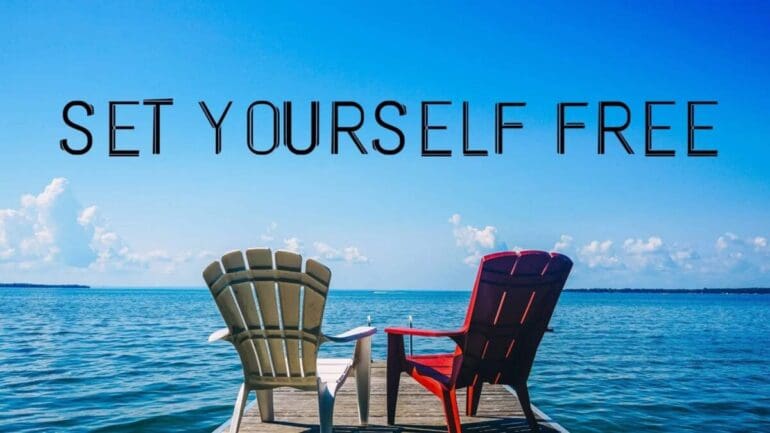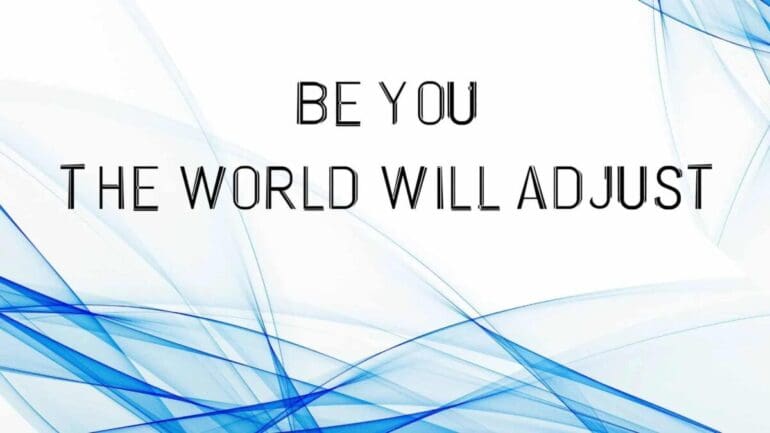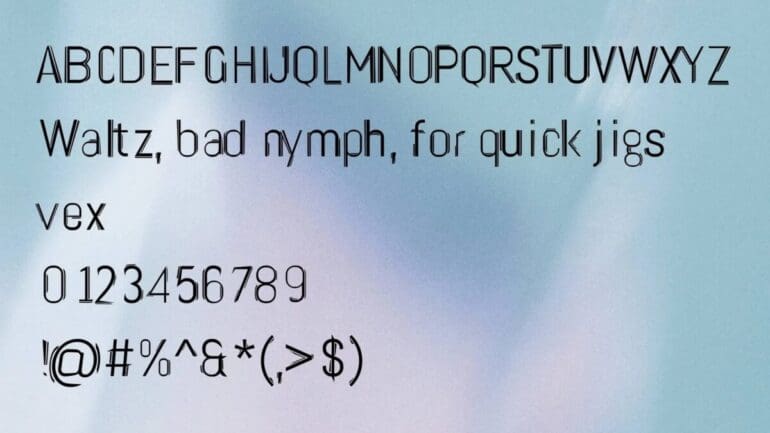
Twin Liner Font
Introducing you to a modern typeface that is contained of the double line and single line alphabets. This decorative typeface is named Twin Liner font that comes with excellent sliced double lines and it was created with the aid of Boldfonts that is famous for many other ornamental typefaces. Their typefaces got extremely popular among the designers which provide advanced designing techniques for their modern designs. Boldfonts wanted to create his own Art Deco style typeface that represented this era.
This typeface has many variants along with quirky glyphs, swashes, high-quality ligatures, and glimps that can easily adjust for both on small and large screens and even better for print media. This realistic font is the most suitable for any design type of design. The characters of the design are beautifying and sharp which provides a quirky look to your headlines and titles.